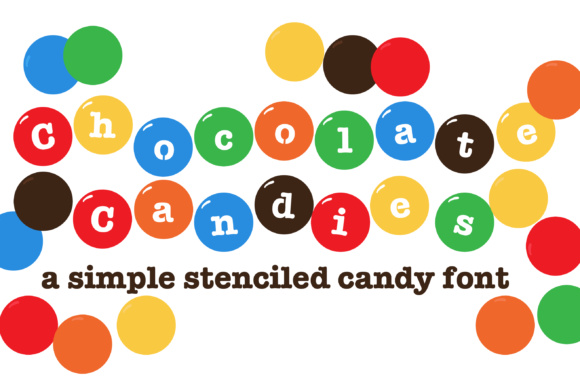
Journey into the delectable world of Chocolate Candies Font, a display font family teeming with sweetness and charm. Illustration Ink, the visionary behind this creation, has masterfully crafted a font that resembles delectable chocolate candies, evoking a sense of nostalgia and delight.
Chocolate Candies Font stands out with its enchanting stencil-like inner letters, inviting you to embark on a crafting adventure. It is a font that sparks creativity, transforming ordinary projects into extraordinary works of art.
Unleash your imagination and let Chocolate Candies Font add a touch of whimsy to your designs. Its playful and charming nature makes it perfect for a range of applications, from crafting personalized cards and invitations to creating eye-catching social media posts and website banners.
With Chocolate Candies Font, you can turn your artistic vision into a reality. Its versatility knows no bounds, adapting effortlessly to a variety of design styles. Whether you're creating a whimsical children's book, a vibrant party flyer, or a playful packaging design, this font will add a touch of magic to your work.
Immerse yourself in the delectable world of Chocolate Candies Font and let your creativity flourish. Its enchanting stencil-like letters and captivating charm will transform your designs into irresistible works of art that leave a lasting impression. Embrace the sweetness and indulge in the limitless possibilities that await you.